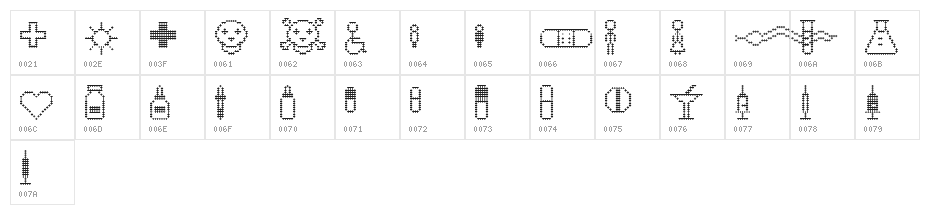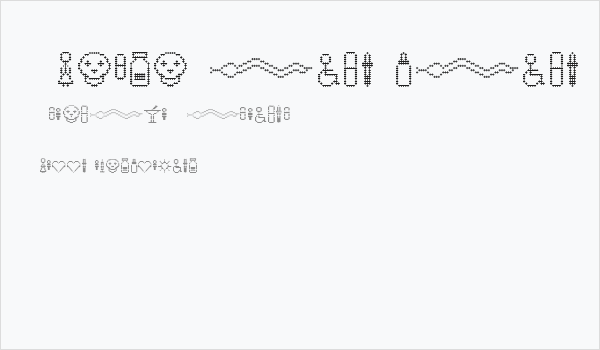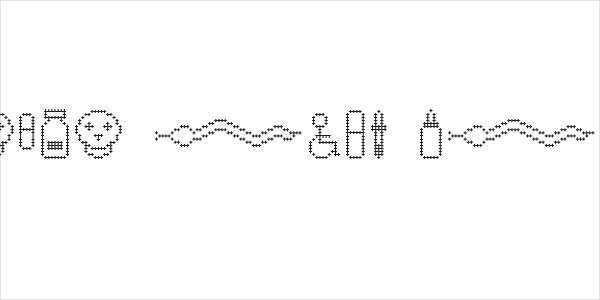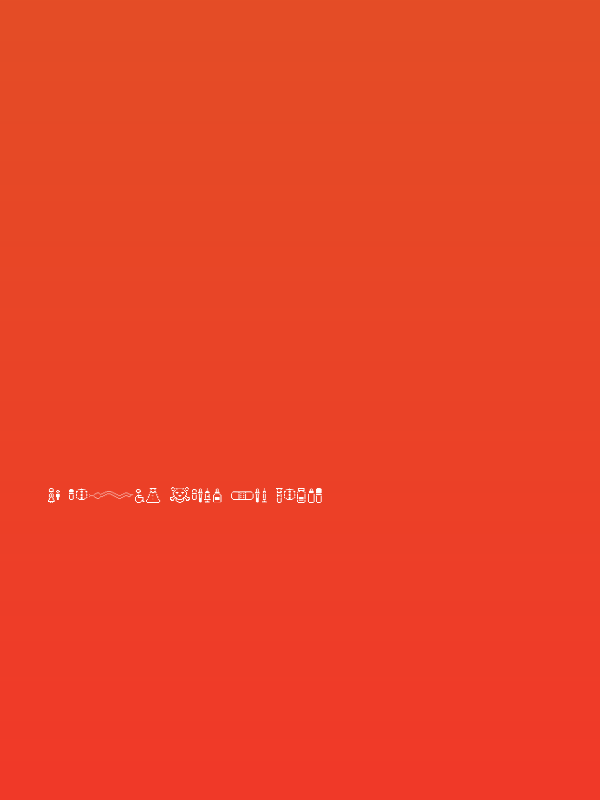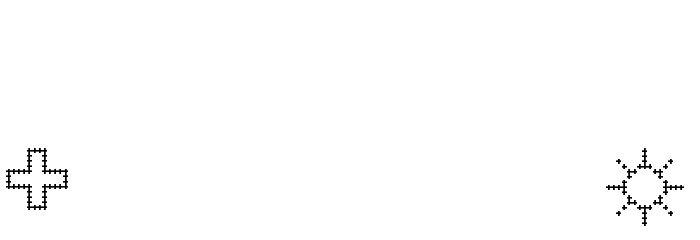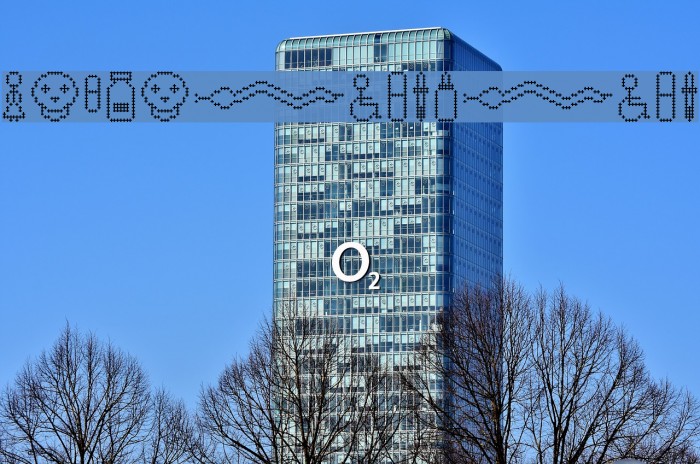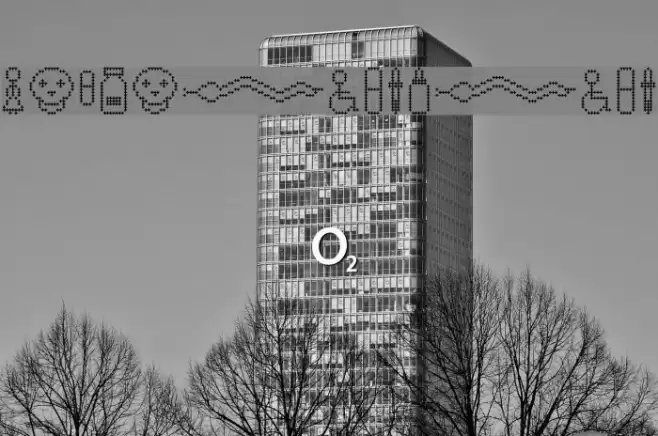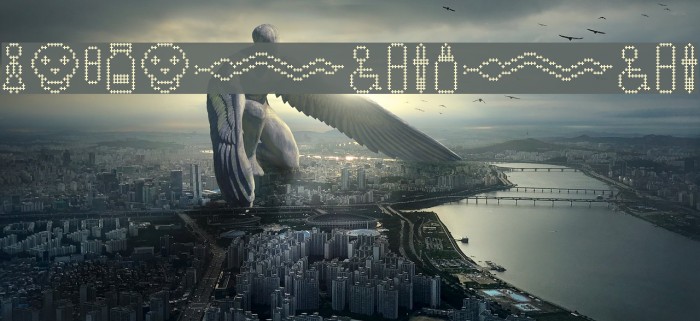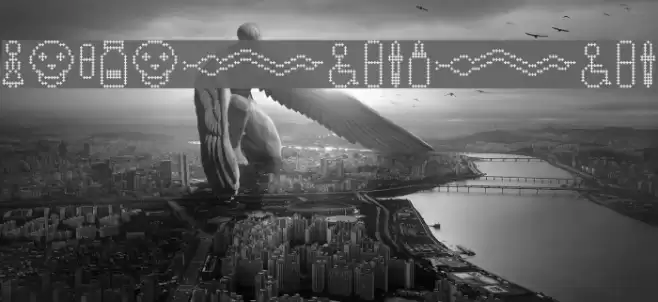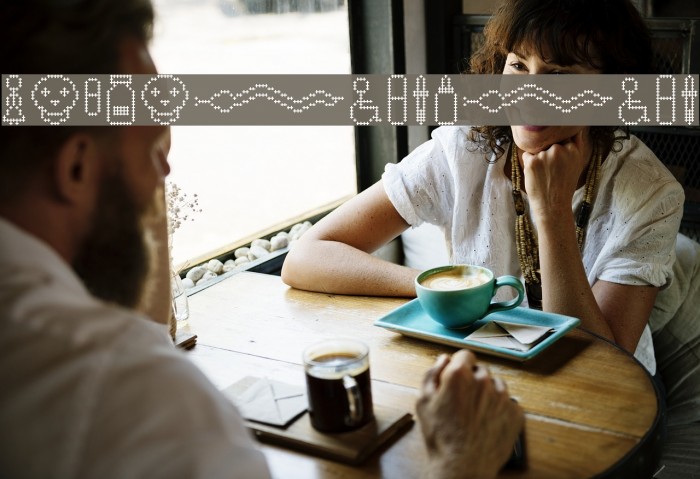
PharmaPicto picto Font
PharmaPicto picto Description
This collection of pictograms features a series of medical and pharmaceutical-themed icons. Each symbol is constructed using a grid of dots, giving it a pixelated, digital appearance. The icons include representations of a smiley face, virus, people, pills, test tubes, syringes, and other medical-related imagery. The design is simplistic yet effective, using minimal detail to convey each concept clearly. The style is reminiscent of retro digital displays, making it suitable for projects that require a vintage or tech-inspired aesthetic.
| Overall Style | Vintage |
| Use Case | Icons, Infographics, Educational materials |
| Proposed Projects | Ideal for use in medical apps, educational materials, healthcare presentations, or retro-themed designs. |